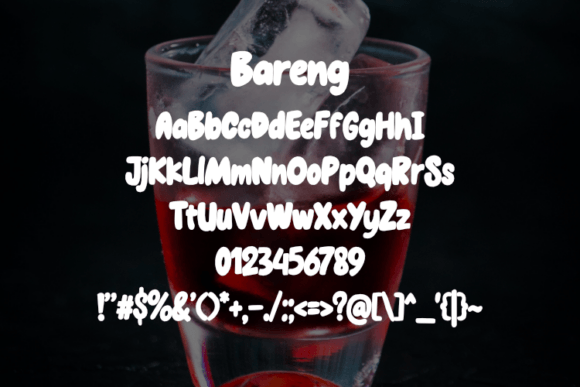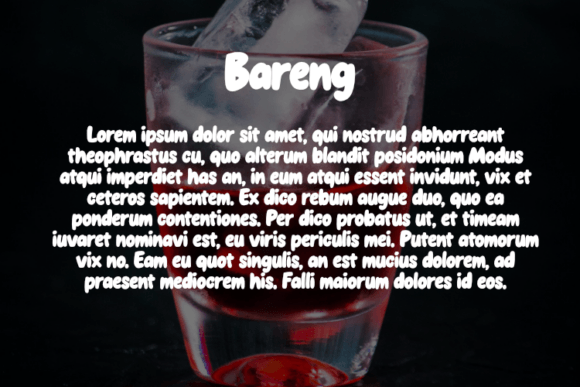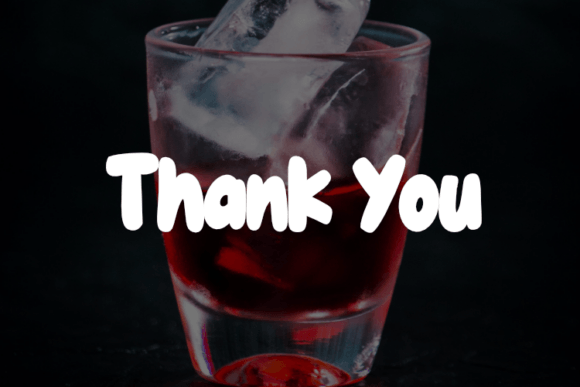
Introducing Bareng Font: The Ultimate Design Companion
In the world of design, the right font can make all the difference. It’s not just about aesthetics; it’s about conveying a message, creating a mood, and enhancing the overall visual appeal of a project. For designers and crafters, finding a font that is both versatile and reliable is a treasure. This is where Bareng Font comes into play, revolutionizing the way we approach design with its adaptability and seamless compatibility.
The Birth of Bareng Font
Bareng Font is more than just a typeface; it’s a design solution crafted to breathe life into various products, from clothing and t-shirts to a wide array of other creative projects. Its creation was inspired by the need for a font that could effortlessly blend with any design style, ensuring that the focus remains on the creativity and message of the project rather than being limited by the font.
Versatility at Its Core
What sets Bareng Font apart is its incredible versatility. Whether you’re working on a minimalist design or something more elaborate, Bareng Font adapts perfectly, ensuring that your project looks great without any compromises. This adaptability makes it an ideal choice for designers who work on a wide range of projects, from fashion designs to digital content.
Seamless Compatibility
One of the significant challenges designers face is font compatibility. A font that looks great in one software might not work as well in another, leading to a tedious conversion process. Bareng Font eliminates this issue with its compatibility across all designs and software. This means you can work on your project using your preferred software without worrying about how the font will translate.
Bringing Your Vision to Life
Bareng Font is not just about functionality; it’s also about beauty. Its unique design elements bring a touch of elegance and sophistication to any project. For crafters and designers, this means that you can elevate your products, making them more appealing to your audience. Whether it’s a t-shirt, a logo, or a digital graphic, Bareng Font helps you achieve the perfect look.
Efficiency and Beauty Combined
The ultimate goal of Bareng Font is to provide a font that is not only beautiful but also efficient to work with. Designers and crafters can now focus on the creative aspect of their projects rather than getting bogged down by technical issues. With Bareng Font, you can experience the joy of seeing your vision come to life in the most beautiful and efficient manner.
Bareng Font is a game-changer in the world of design. Its adaptability, versatility, and seamless compatibility make it an indispensable tool for designers and crafters. By choosing Bareng Font, you’re not just selecting a typeface; you’re enhancing your creative process and ensuring that your projects stand out. Experience the difference Bareng Font can make and bring your designs to life like never before.
Key Features of Bareng Font:
- Adaptable and versatile for various design projects
- Compatible with all designs and software
- Enhances creative process and workflow efficiency
- Bringing elegance and sophistication to your designs
Discover the potential of Bareng Font and take your designs to new heights. Experience a font that is not just a part of your project but a pivotal element that brings it all together.